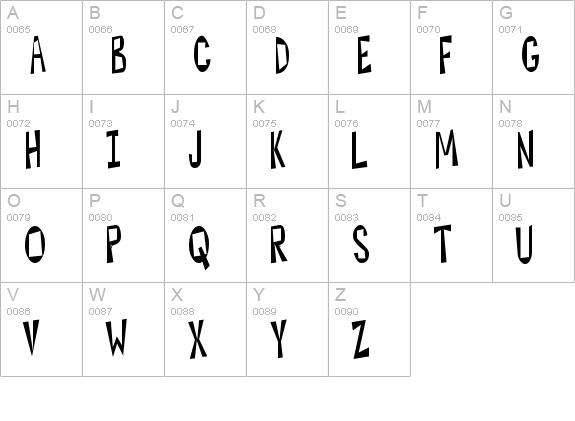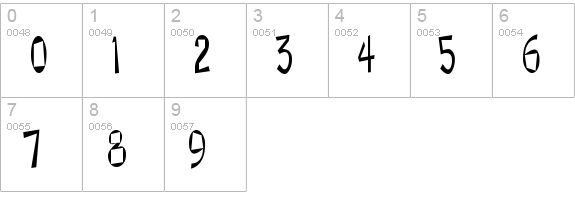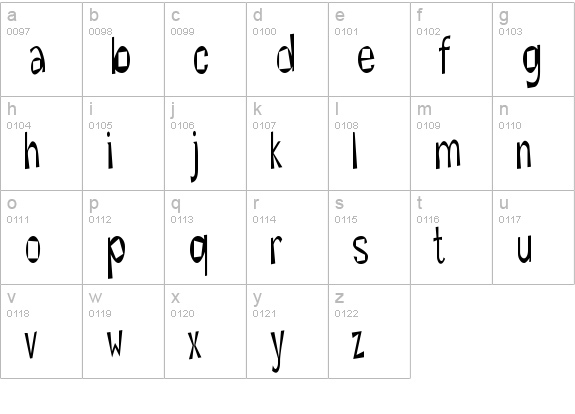
Hesitant Font Details
Hesitant font is a unique and versatile typeface that exudes a sense of hesitation and intrigue. Its delicate and elegant curves make it suitable for a wide range of design projects, from wedding invitations to branding materials. The playful yet sophisticated appearance of Hesitant font adds a touch of whimsy to any design. Best of all, Hesitant font is available for free download at FontsMarket.com. This means you can easily add this charming font to your collection without any cost. Don't hesitate to elevate your designs with the captivating Hesitant font today!